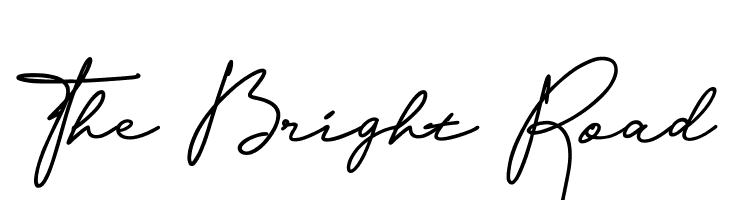
( Fonts by Edom Wahyudi )
A playful, bold handwritten font with rounded, consistent strokes.
( Fonts by Laurent Mouy )
A lively, handwritten font with fluid, organic strokes and a playful yet sophisticated flair.
( Fonts by El Stinger )
A casual, handwritten font with dynamic, expressive strokes.
( Fonts by Leanne van der Wel - www.leannevanderwel.nl )
A fluid and expressive handwritten-style font with a modern cursive touch.
( Fonts by Emerald City Fontwerks )
A dynamic, expressive handwritten font with fluid, cursive letterforms and artistic flourishes.
( Fonts by pheist.net - Stefanie Koerner )
A hand-drawn, casual font with an organic, playful style.
( Fonts by joeBob graff-X )
A casual, handwritten font with fluid and organic strokes.
( Fonts by Andreas Hofeld - www.fontgrube.de )
( Fonts by Kreative Korporation - www.kreativekorp.com )
A playful, whimsical handwritten font with irregular, quirky letterforms.
( Fonts by Niels Bonnevie )
A bold, playful handwritten font with rounded, marker-like strokes.
( Fonts by Carolina Mejia - mitiendadescrapbook.com )
A playful, handwritten font with bold, rounded characters and a friendly appearance.